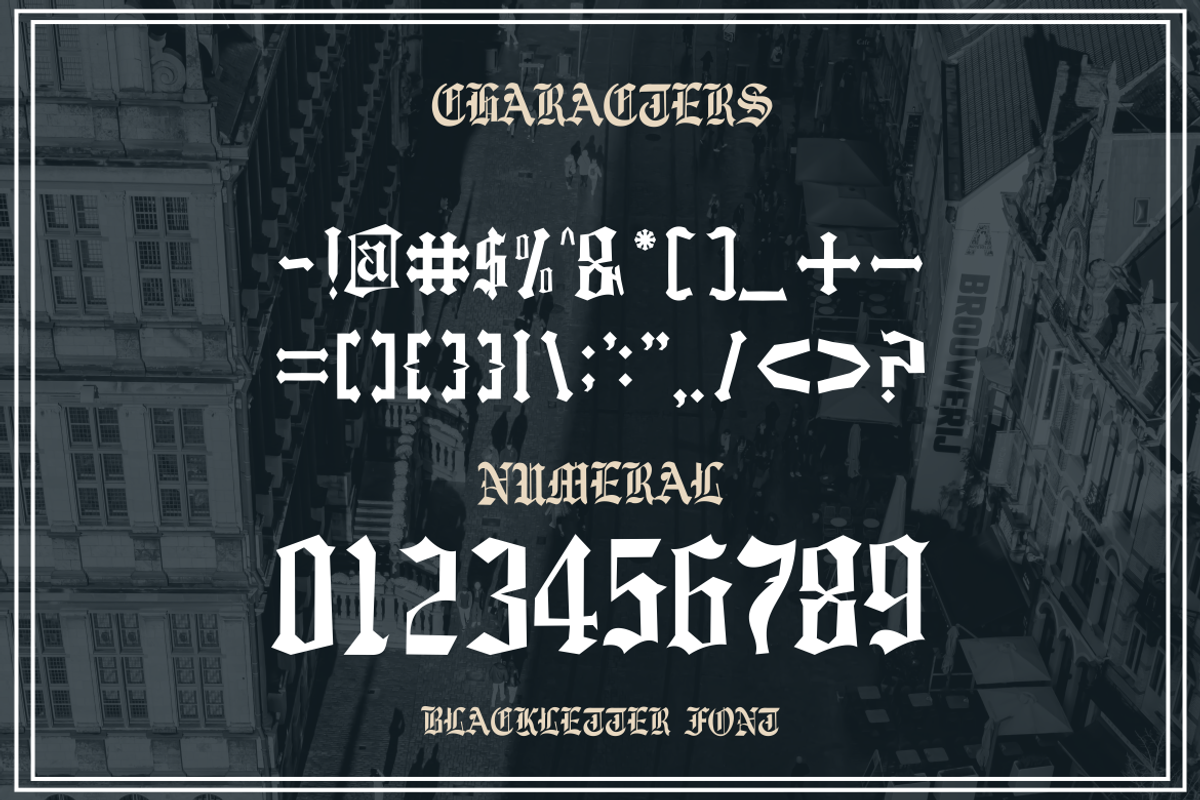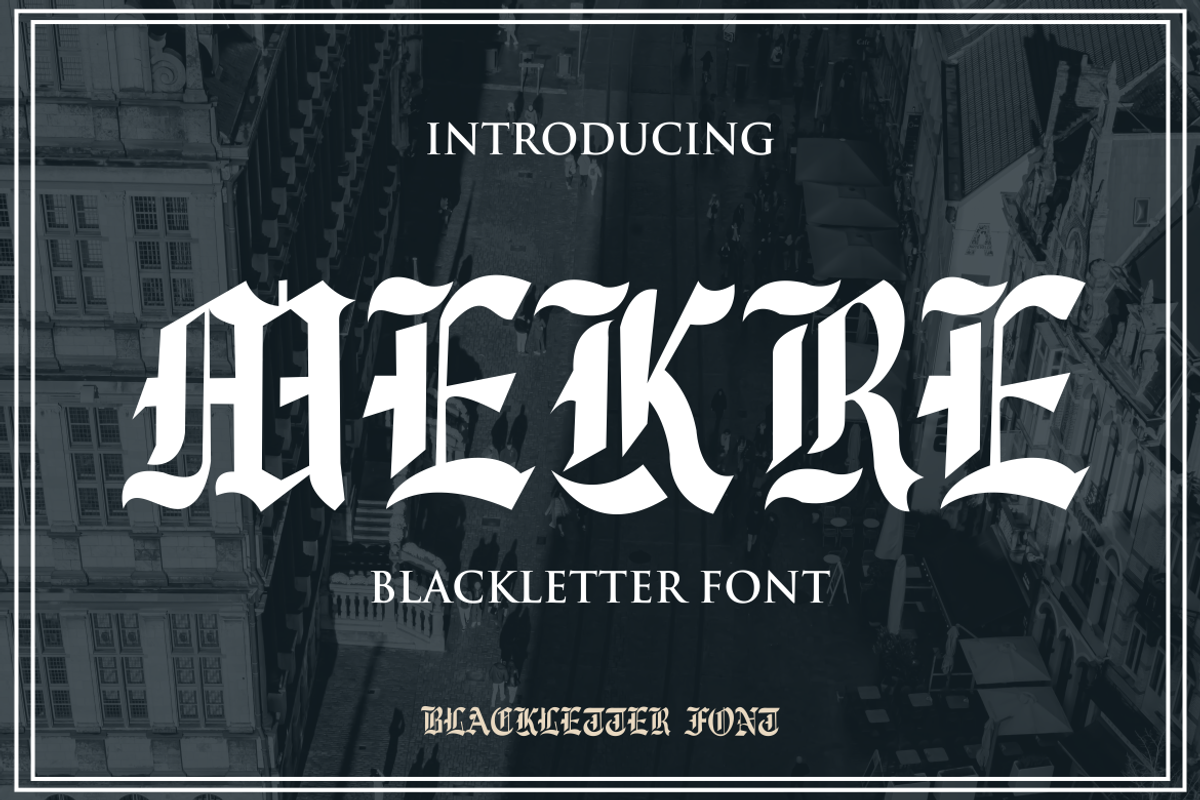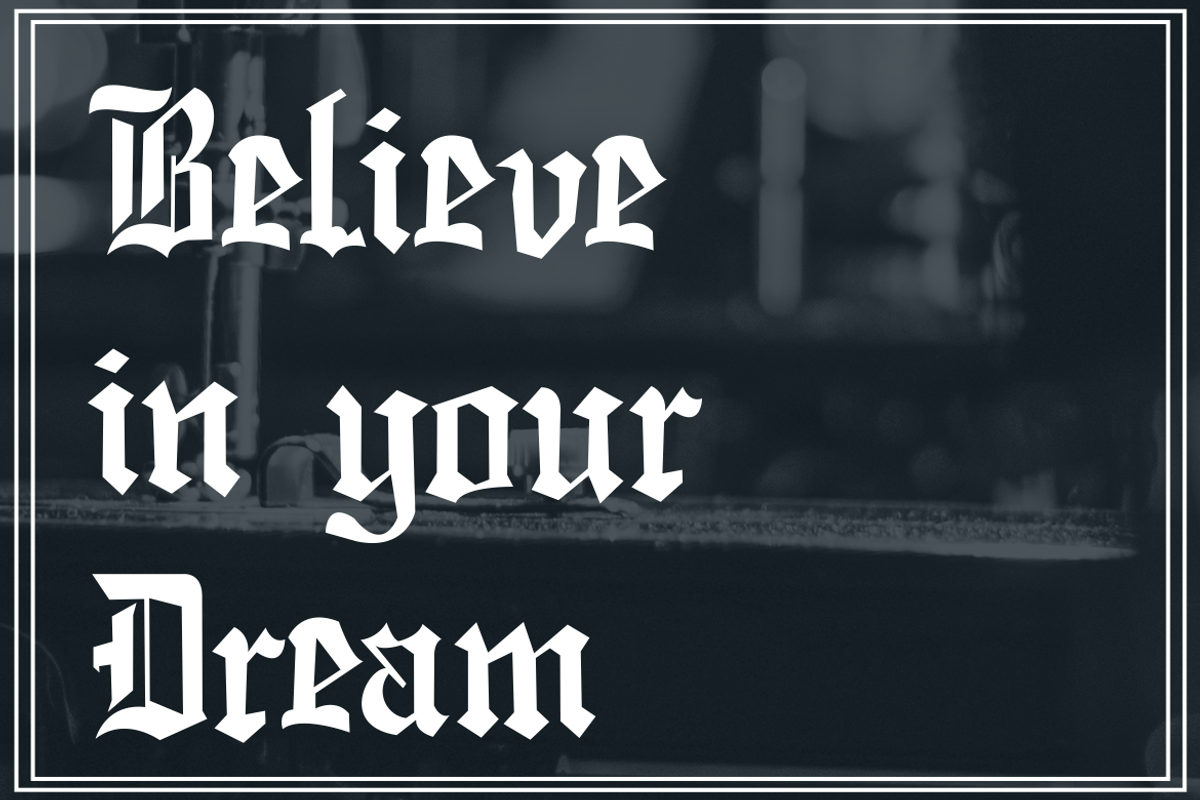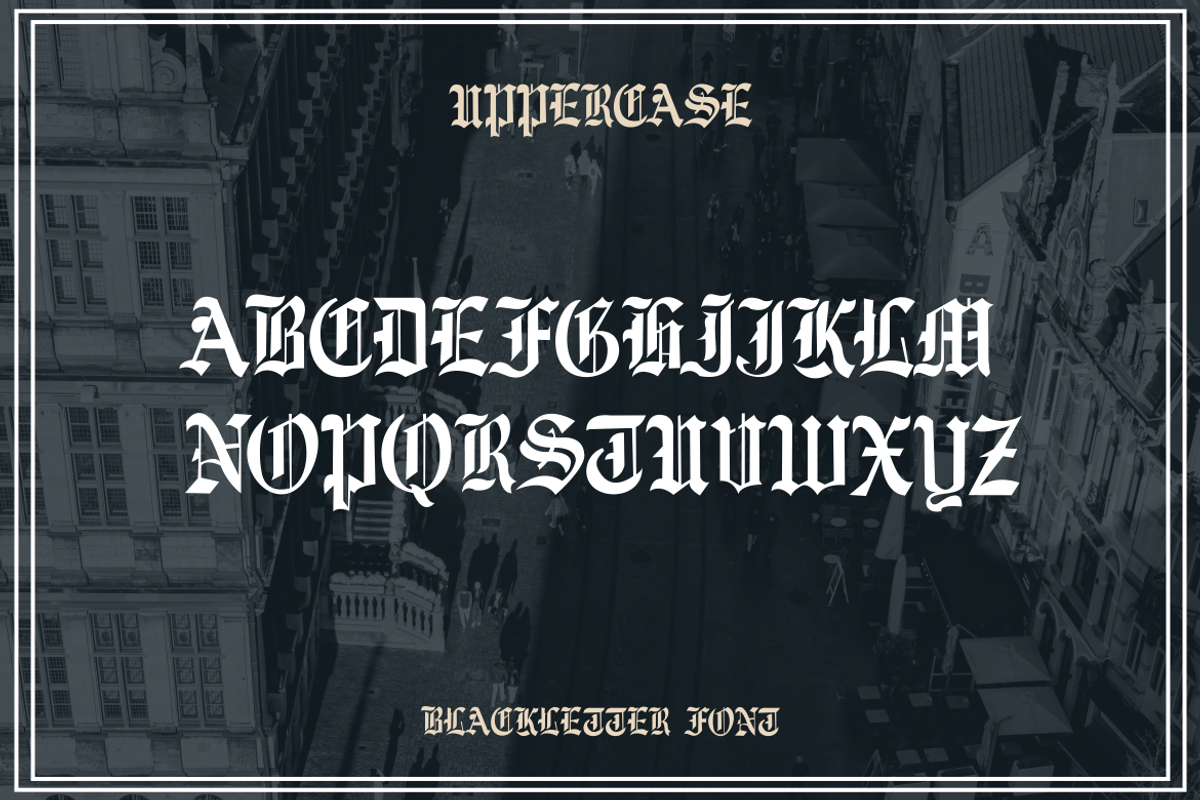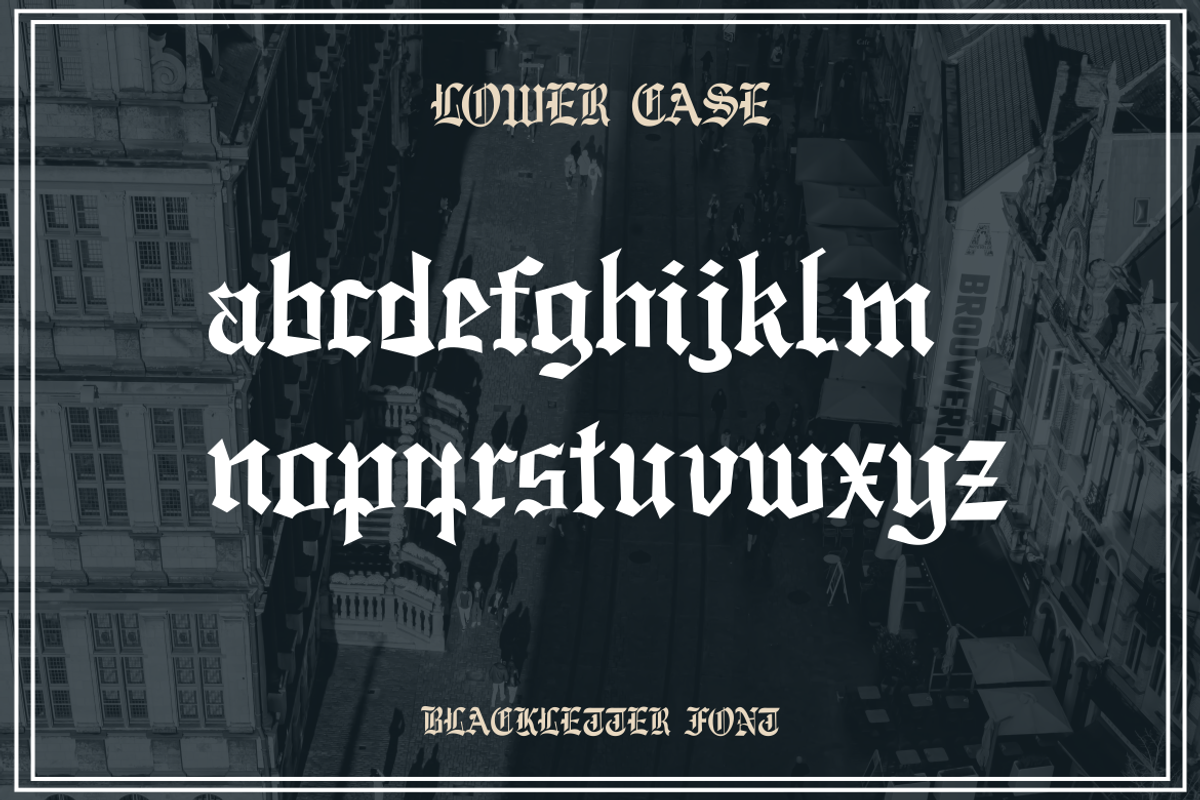
Mekre Decorative Font
Mekre Decorative Font Font is a modern and Elegant Handwritten script font. It's perfect for branding, wedding invitations, photography, Neon Sign, bloggers, logos, greeting cards, Logo, Quotes, Lettering, Posters and more.
- numeric & Multilingual support